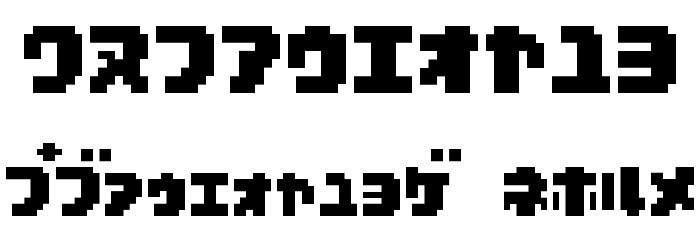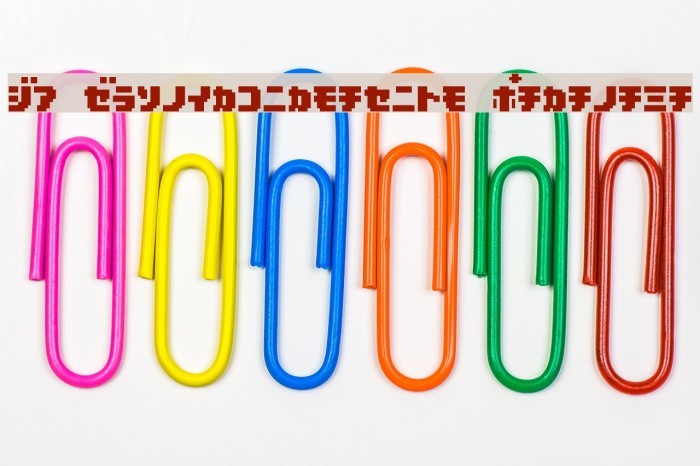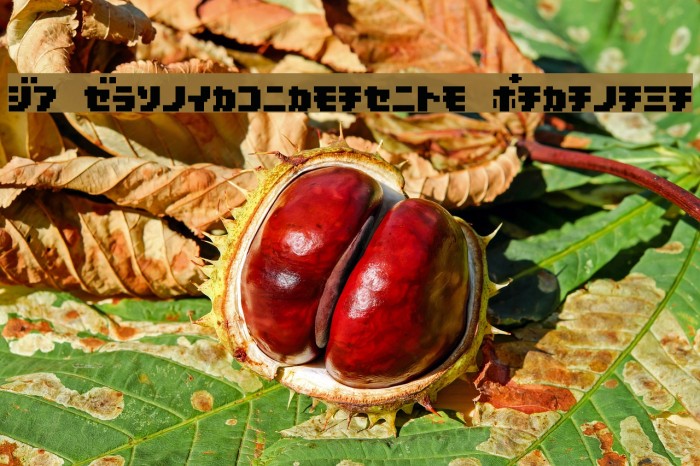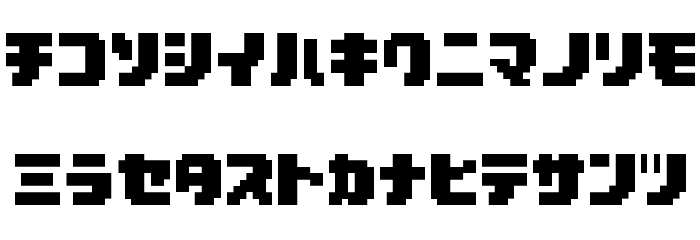
D3 Pocketbitmapism Katakana Font
D3 Pocketbitmapism Katakana Description
This font is a pixelated, bitmap-style typeface that captures the essence of retro digital displays. Each character is composed of bold, blocky pixels, giving it a distinctly digital and nostalgic feel. The uniformity and simplicity of the pixel design make it ideal for projects that aim to evoke a sense of early computing or video game aesthetics. The characters are evenly spaced, maintaining a consistent and structured appearance across all lines of text. This font is particularly effective in creating a vintage or tech-inspired look, suitable for both modern and retro-themed designs.
A pixelated, retro digital font with bold, blocky characters from Uncategorized fonts.
- Proposed Projects: Ideal for retro video game graphics, digital art projects, tech-themed posters, and nostalgic branding.
- Overall Style: Vintage